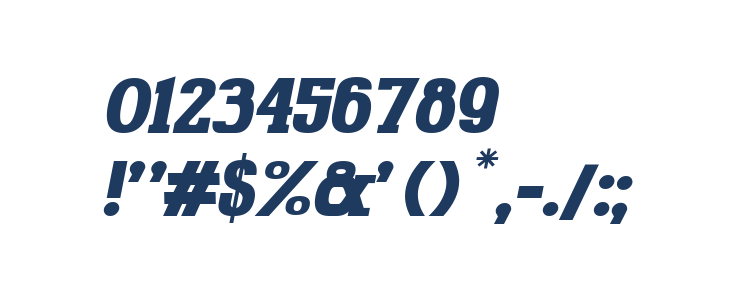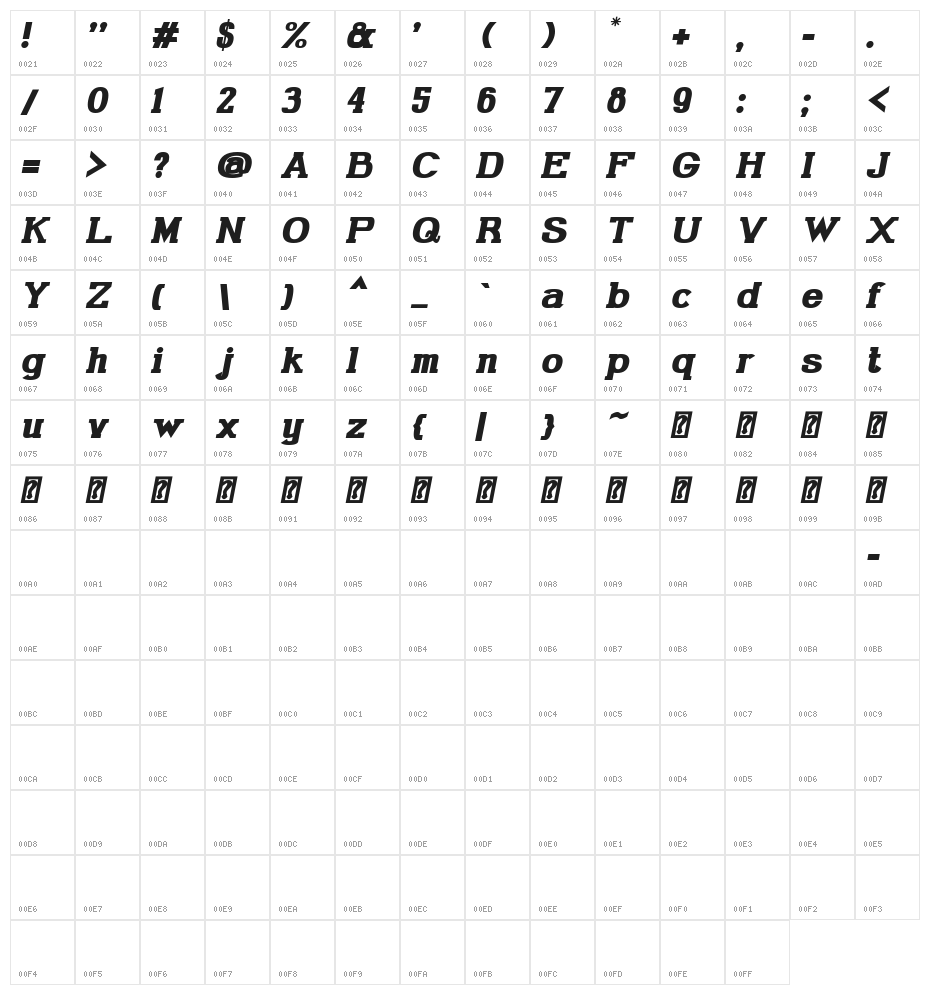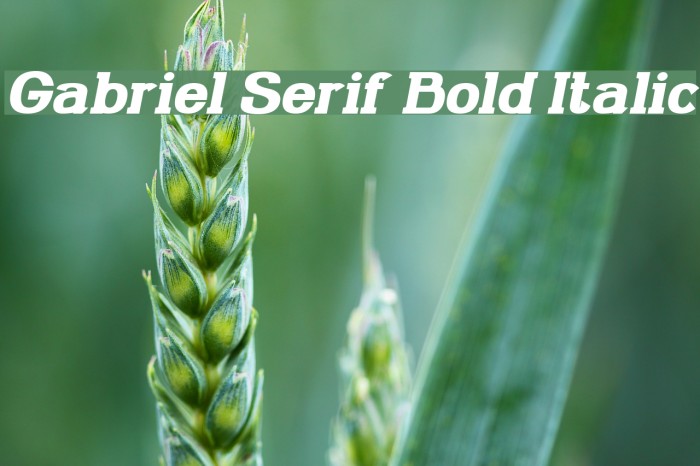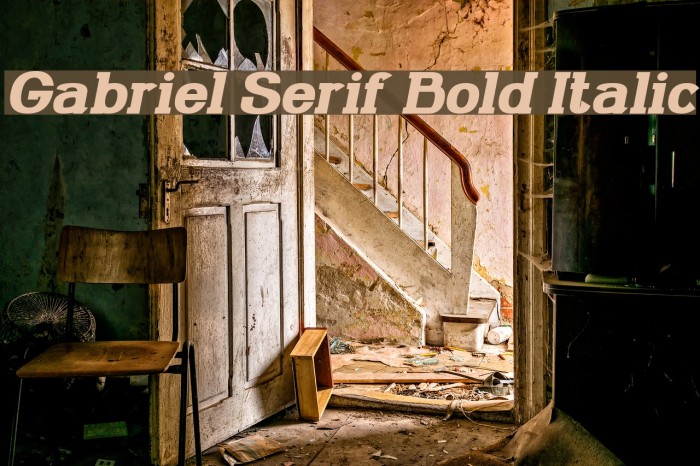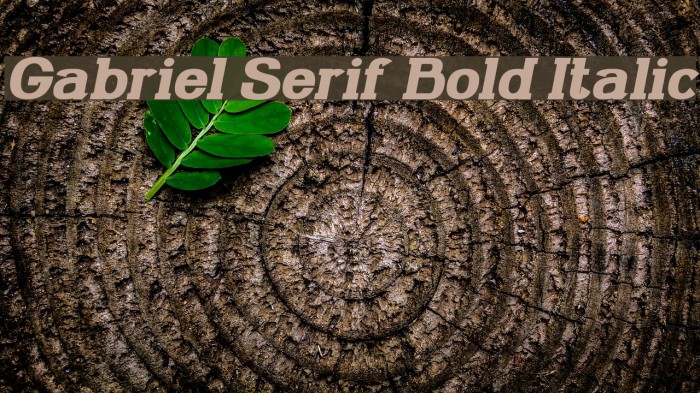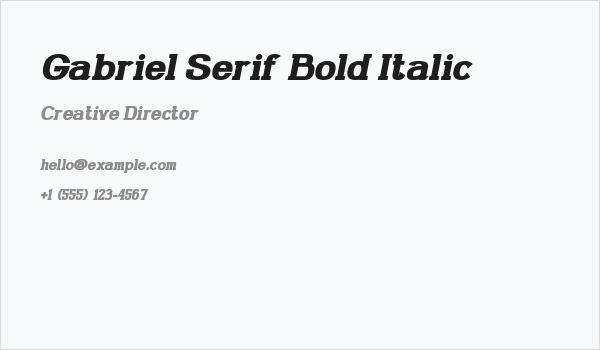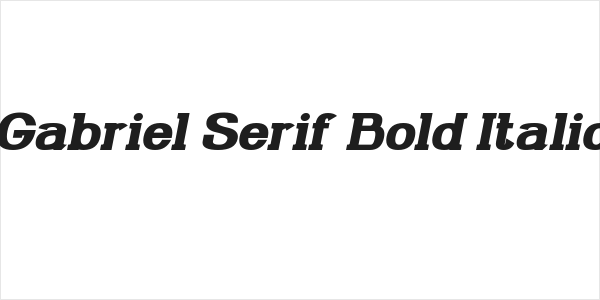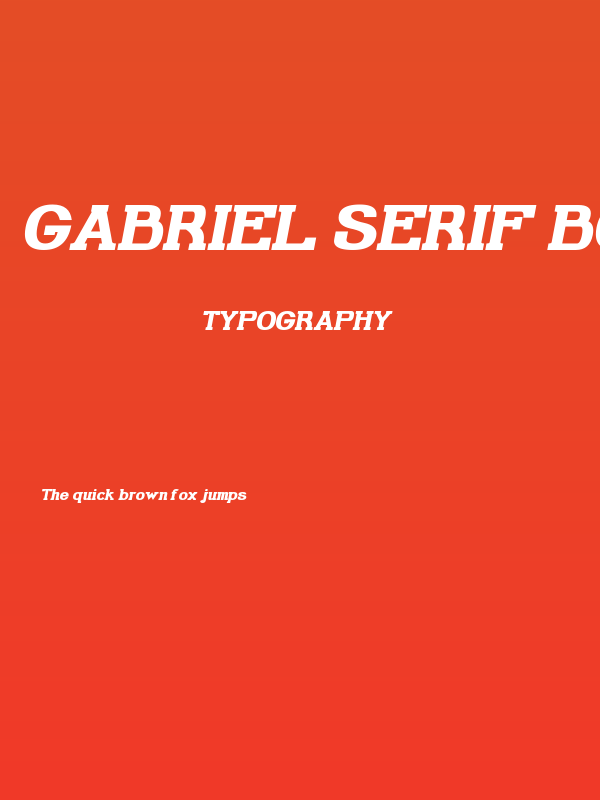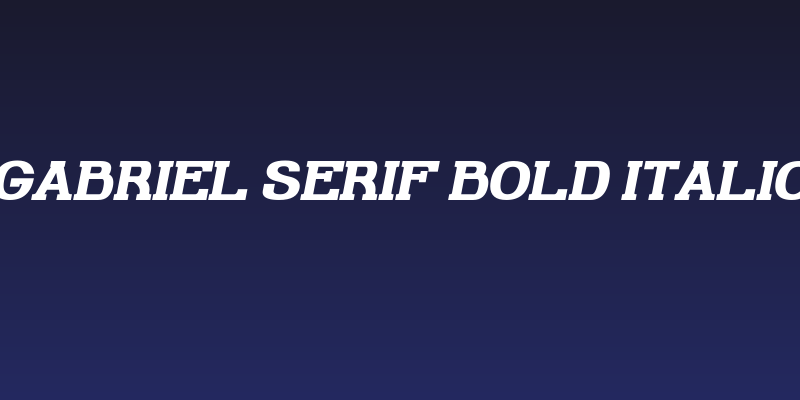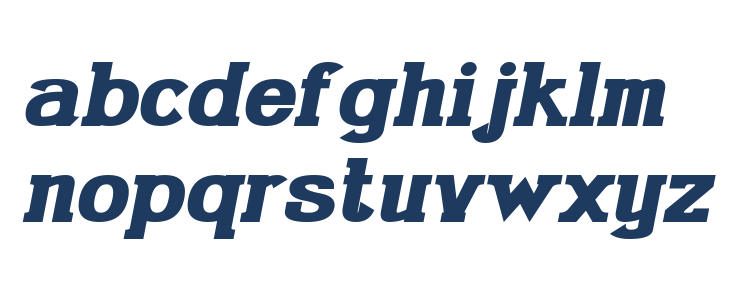
Gabriel Serif Bold Italic Font
Gabriel Serif Bold Italic Description
This font features a bold and italicized serif style, characterized by its strong, pronounced strokes and elegant slant. The serifs are prominent, adding a classic touch to the overall design. The letters are well-defined with a consistent weight, providing a sense of stability and sophistication. The italic angle enhances the dynamic appearance, making it suitable for impactful and stylish text. The numbers and special characters maintain the same bold and italicized characteristics, ensuring uniformity across all glyphs.
| Use Case | Headlines, Logos, Editorial design |
| Proposed Projects | Ideal for use in branding, editorial design, book covers, and formal invitations where a touch of elegance and emphasis is needed. |